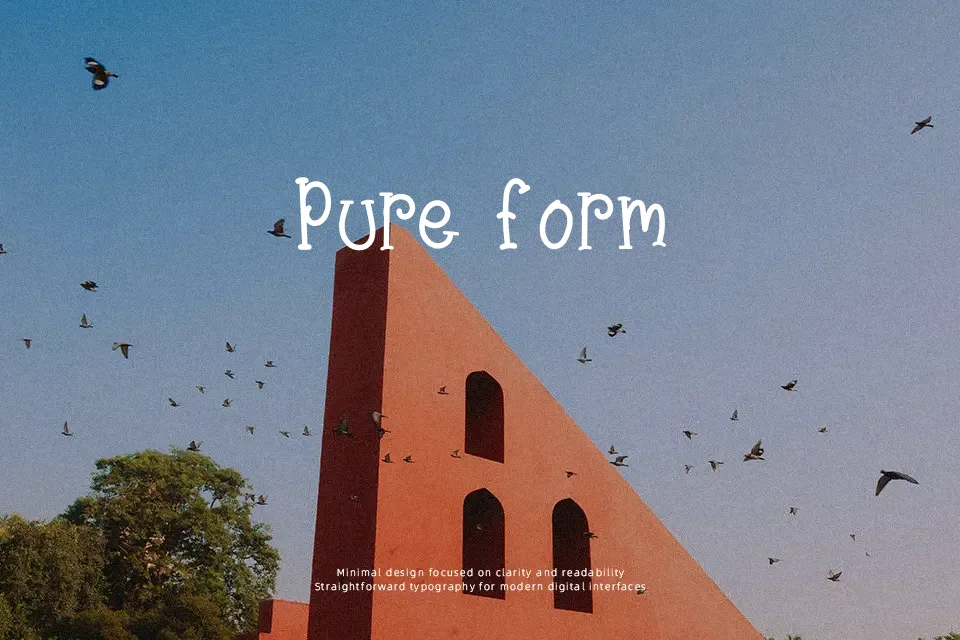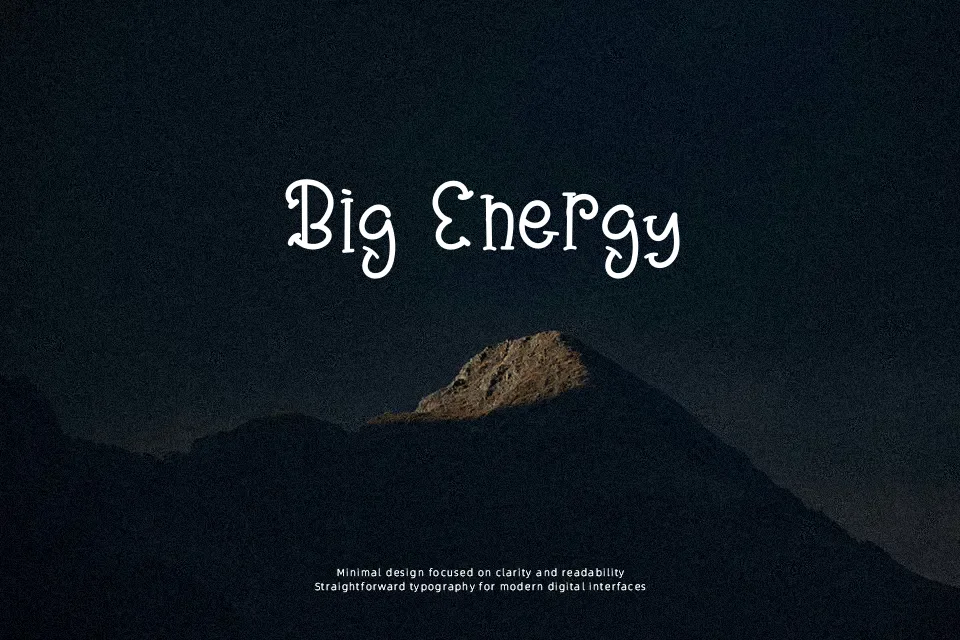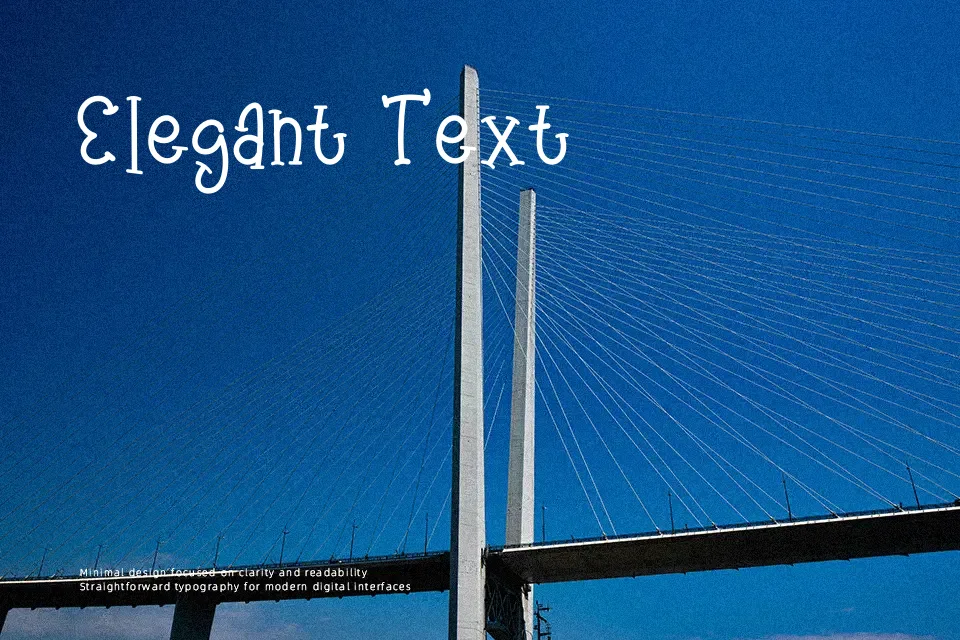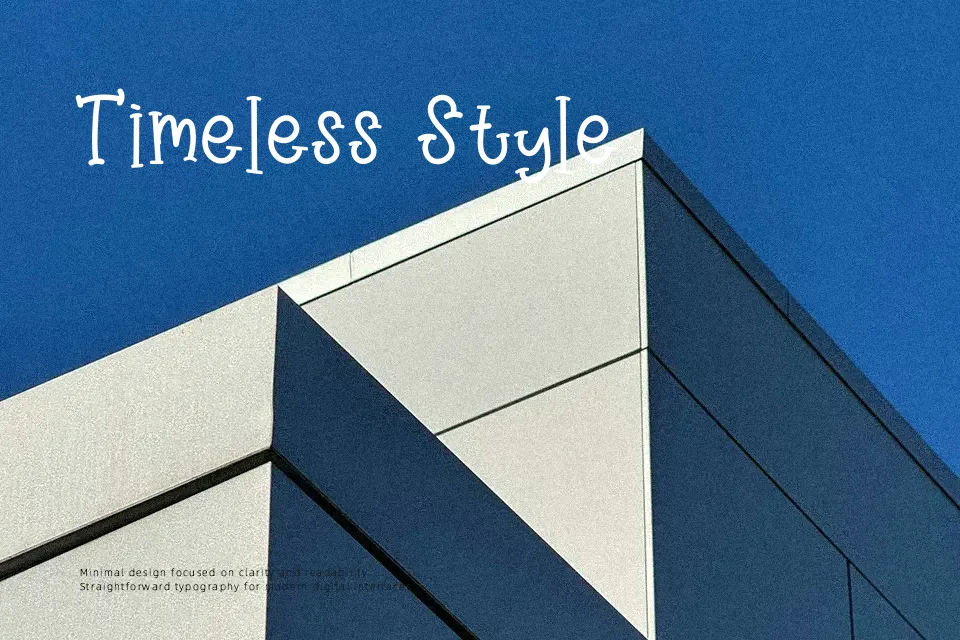
Angry & Hungry Font
Designed by Haksen Studio
Angry & Hungry features rounded, irregular letterforms with a doodled, hand-drawn quality that feels casual and energetic rather than polished. The strokes are moderately bold, with loose spacing that keeps words readable at larger sizes while emphasizing its bouncy rhythm. This playful cartoon display style suits children’s event flyers, kawaii food branding, YouTube thumbnails, or fun header text on games-related layouts. It does not handle long paragraphs or serious editorial tone well, as the quirky shapes quickly become tiring in dense text and undermine professionalism. Use it when you want a cute, friendly accent font alongside a simpler sans serif for body copy, not as an all-purpose typeface.
kids birthday party posters
snack or candy packaging titles
playful gaming or streaming logos
children’s book or activity cover headlines
long body text or articles
formal corporate reports or pitch decks
minimalist luxury branding systems
small UI labels or dense app interfaces
Perfect for branding, headline, and logo, with a creative and cartoon style.